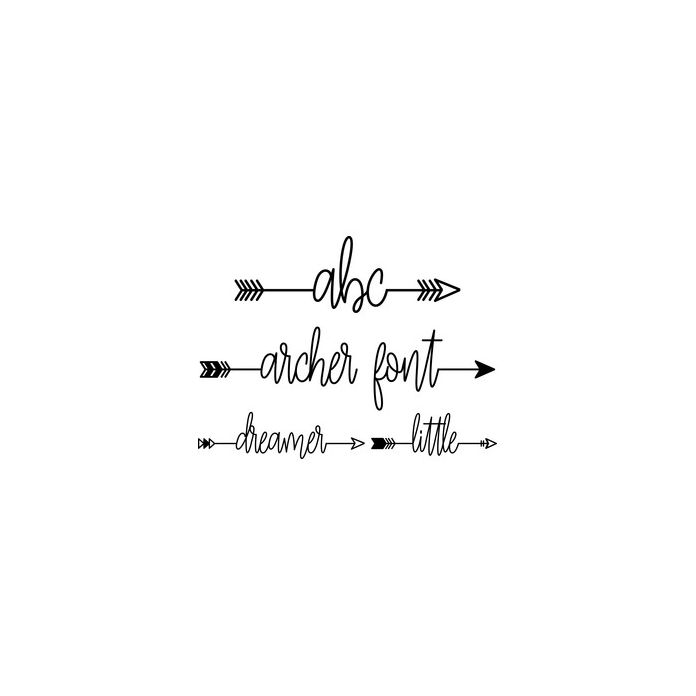
This font includes all lowercase. Uppercase letters have been replaced by a variety of arrow designs. Mix and match to create your own unique designs. Archer font has a sister font (swift arrow font) which you can use together.